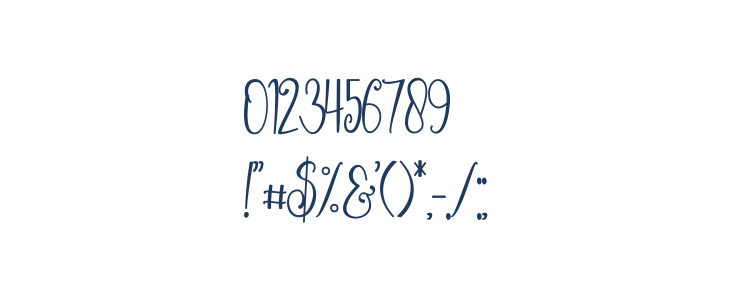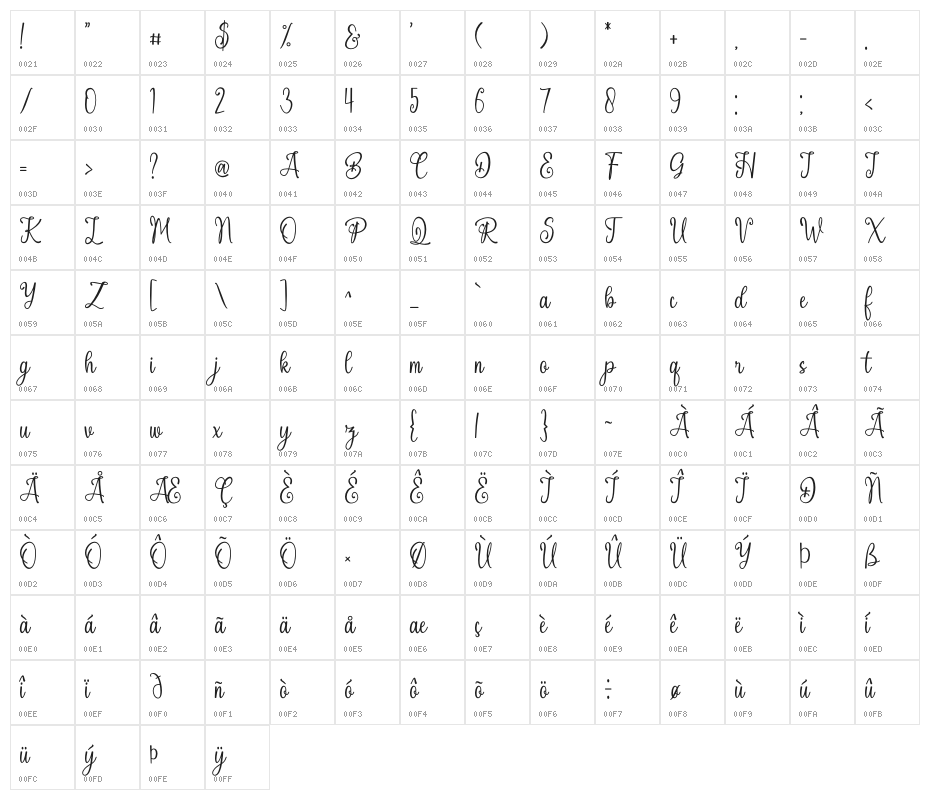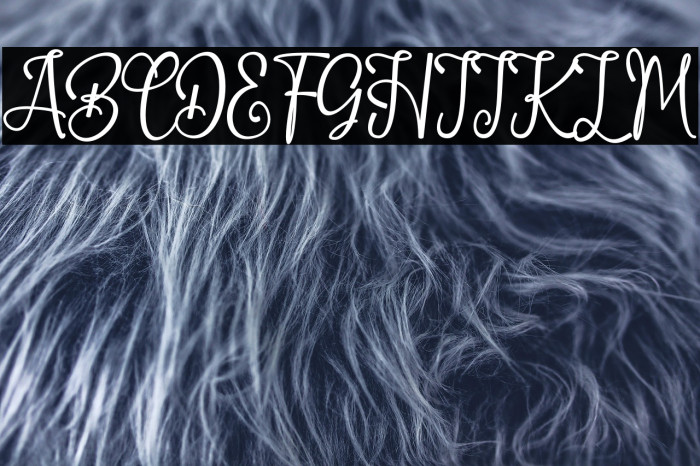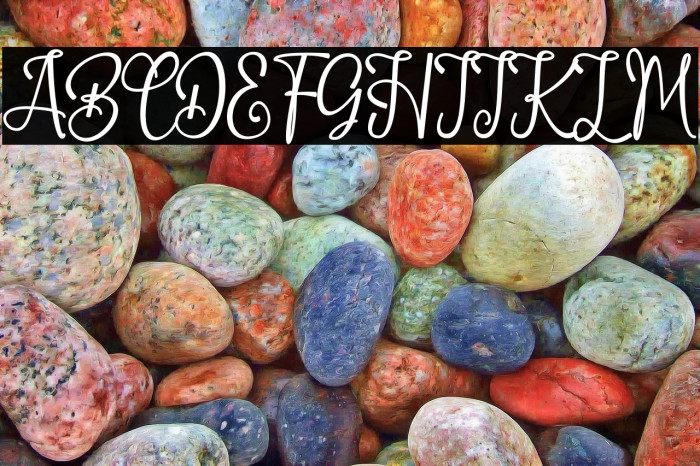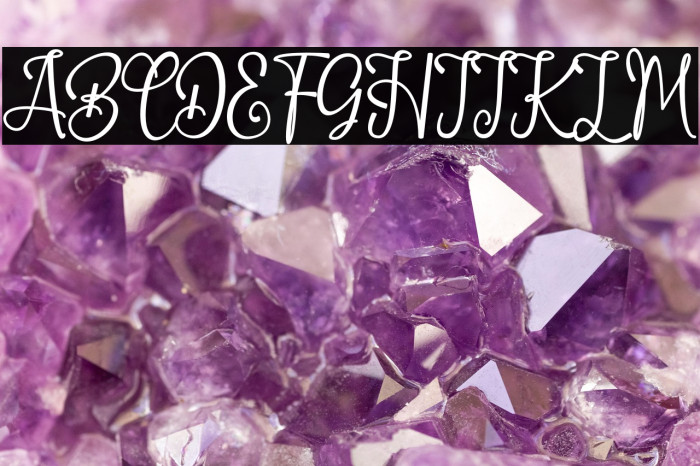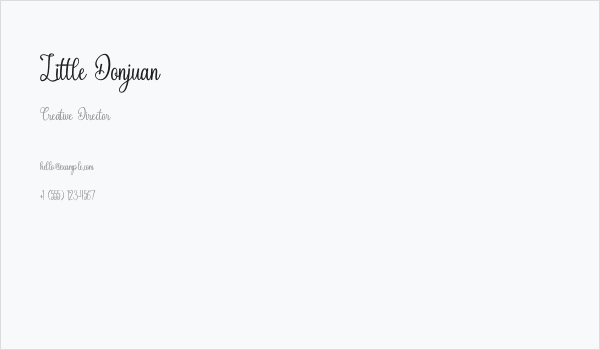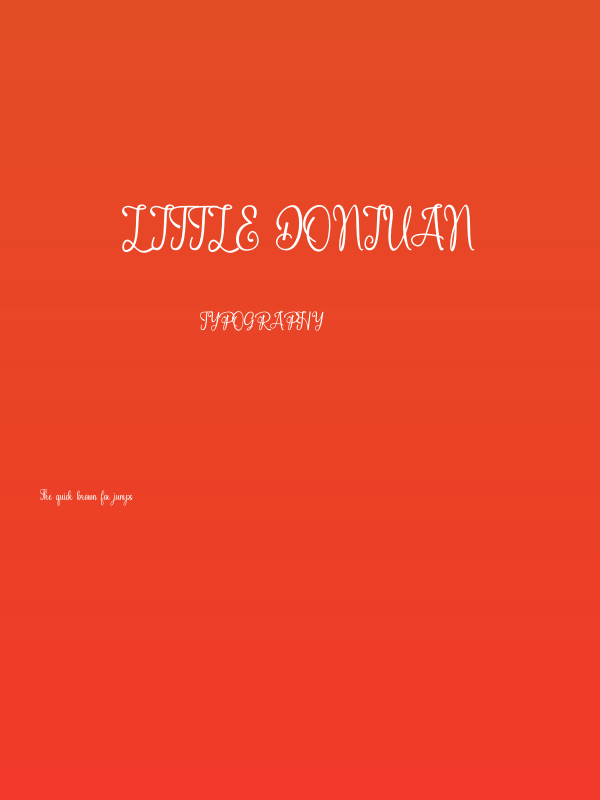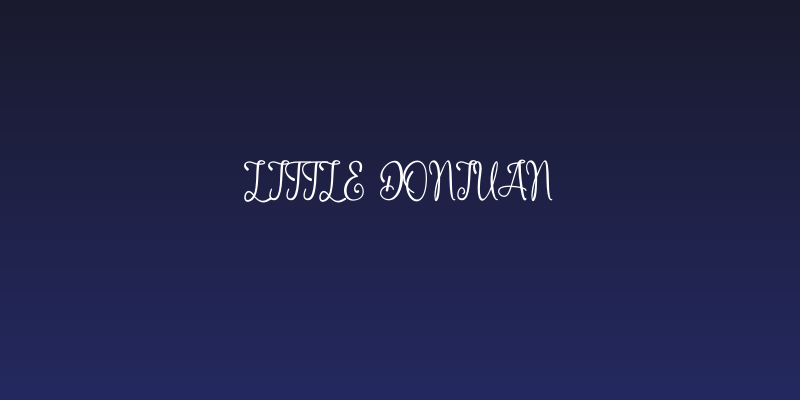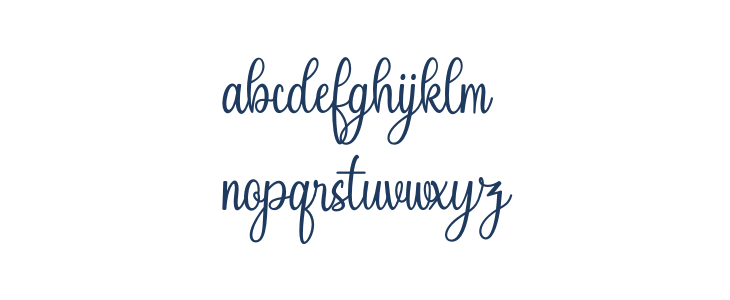
Little Donjuan Font
Little Donjuan Description
This font features a playful and elegant script style, characterized by its flowing, cursive letters that mimic the fluidity of handwriting. The uppercase letters are bold and slightly elongated, with decorative loops and swirls that add a whimsical touch. The lowercase letters maintain a consistent style, with smooth curves and a slight slant, enhancing the handwritten feel. Numbers and special characters are designed to match the overall aesthetic, with similar flourishes and attention to detail. The font's design is both sophisticated and approachable, making it suitable for a variety of creative projects.